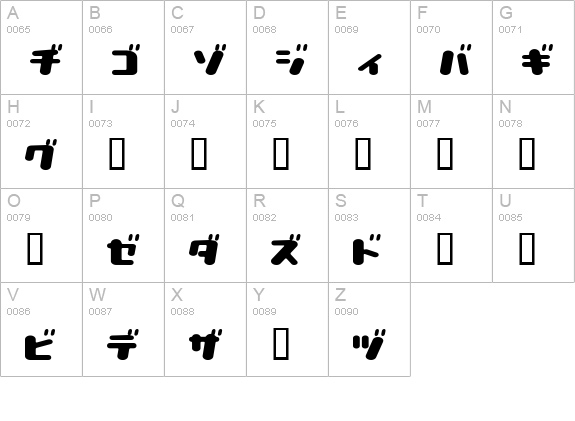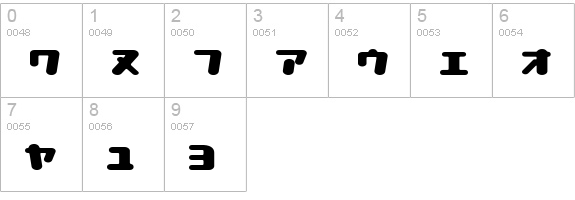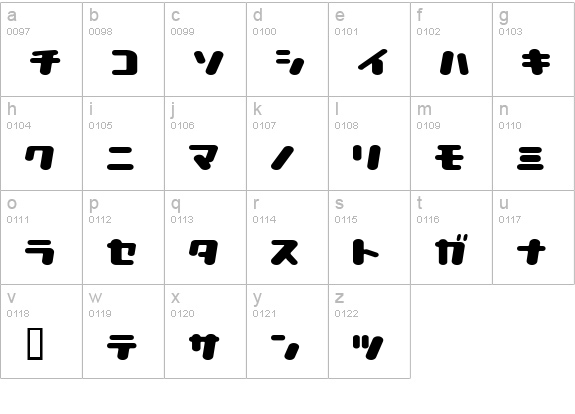
lovely capsule Font Details
The lovely capsule font is a visually stunning typeface that is sure to make your designs pop. With its sleek and modern look, this font is perfect for adding a touch of elegance to any project. The rounded edges and smooth lines of the characters give this font a soft and inviting feel, making it ideal for a variety of creative projects. Best of all, this lovely capsule font is completely free to download at FontsMarket.com! Whether you're working on a logo, branding, invitations, or any other design project, this font is sure to add a touch of charm and sophistication. Download it today and elevate your designs with this beautiful and versatile typeface.